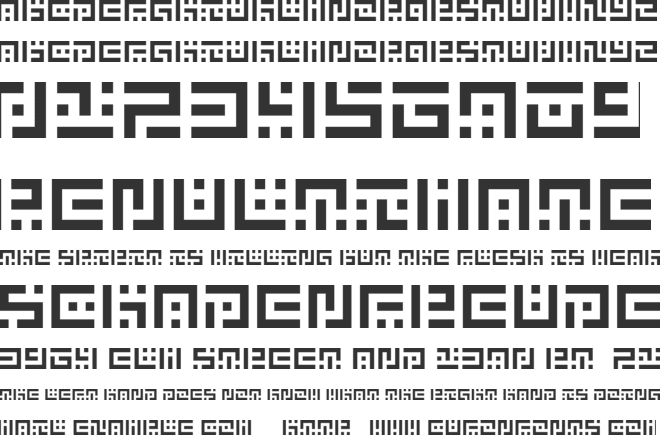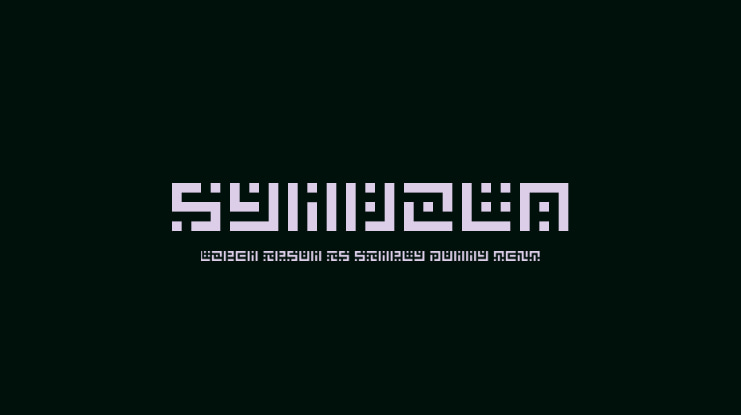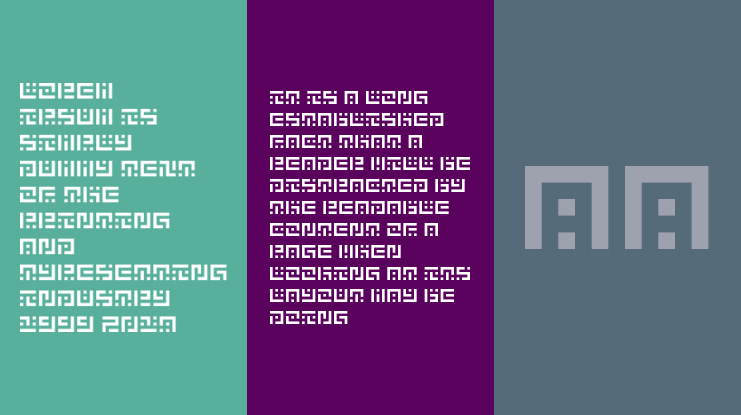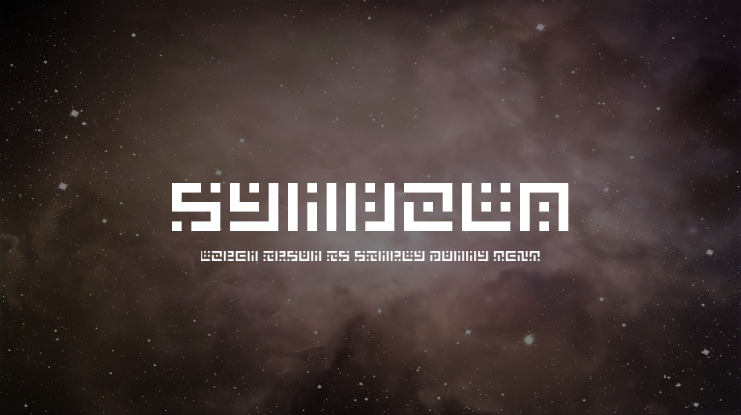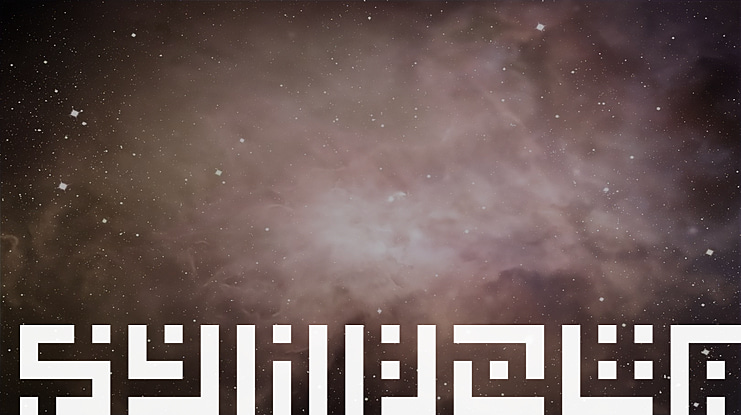
Symvola Font Family
Aleksandr Savenkov
Symvola is a free typeface containing Basic Latin and Greek characters. Letter design is inspired by the time machine's interface from Space Quest IV and puzzle panels from The Witness.